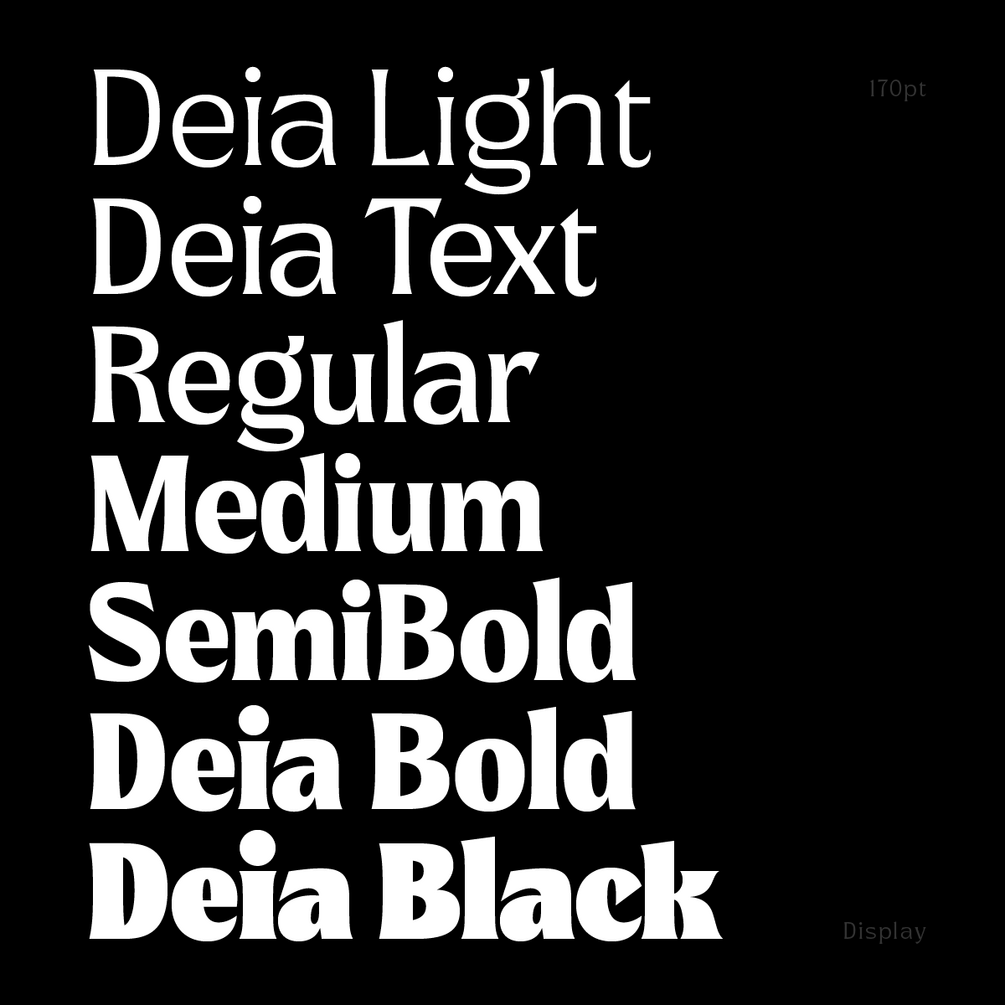
Deia
Deia is a 7 weights bracketed serif made for packaging projects. It has great impact and elegance on all 7 styles and it works great for beverages and branding projects. It is available as Desktop and Web-fonts. The variable file is included in the Full Family Desktop.